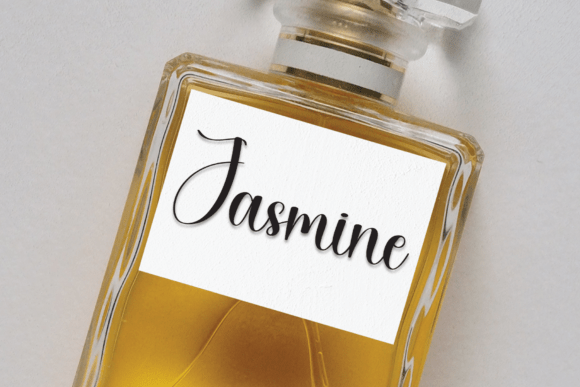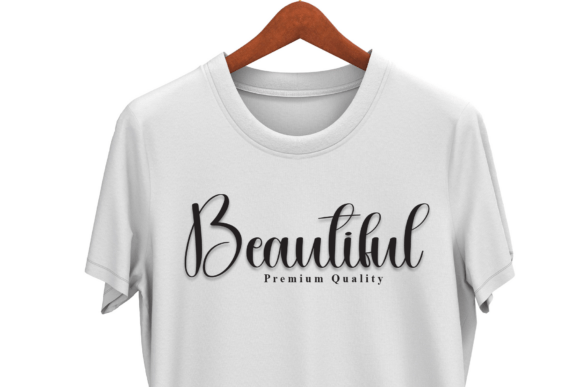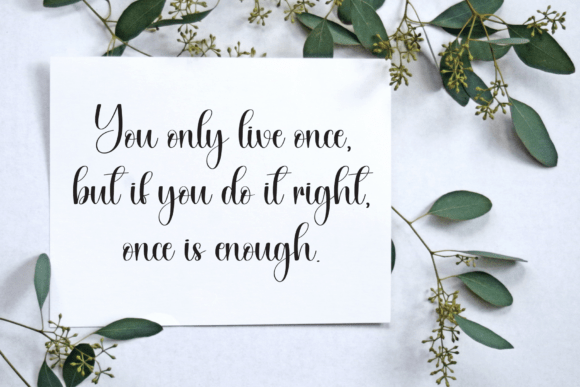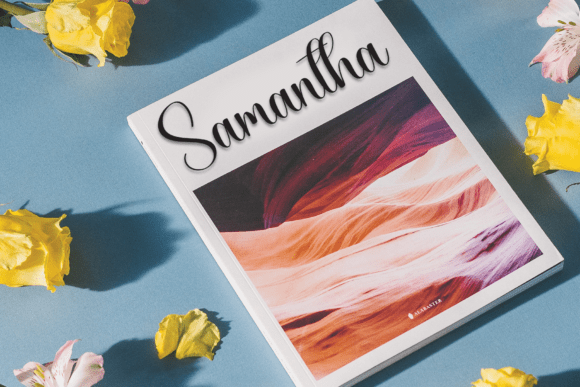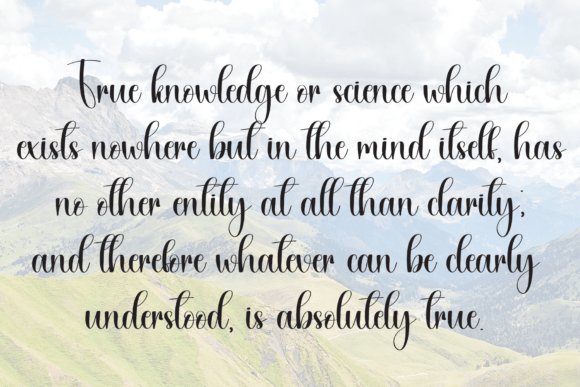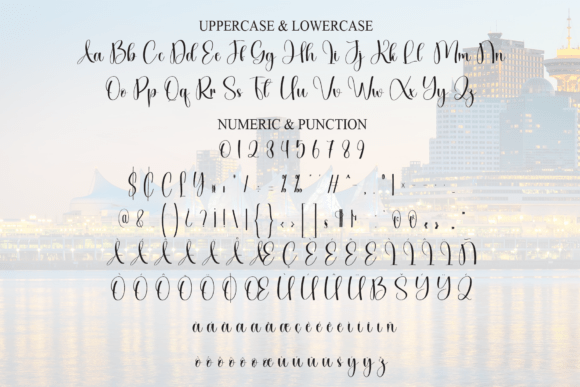
Australian Font: Elevate Your Design with Elegance and Charm
Are you looking for a font that can add a touch of sophistication to your design? Look no further than the Australian Font. This elegant script font is perfect for weddings, branding, social media, and invitations, featuring smooth curves and graceful swashes that elevate your text with a handwritten, romantic feel.
The Characteristics of Australian Font
The Australian Font is a script font that exudes elegance and charm. Its flowing lines and smooth curves create a sense of movement and fluidity, making it perfect for designs that require a touch of sophistication. The font features:
- Smooth Curves: The Australian Font features smooth, flowing curves that create a sense of elegance and refinement.
- Graceful Swashes: The font includes beautiful swashes that add a touch of drama and flair to your design.
- Handwritten Feel: The Australian Font has a handwritten feel that adds a personal touch to your design.
- Romantic Style: The font’s romantic style makes it perfect for weddings, love letters, and other designs that require a touch of whimsy.
Uses for Australian Font
The Australian Font is versatile and can be used for a variety of design projects, including:
- Weddings: The font is perfect for wedding invitations, wedding stationery, and other wedding-related designs.
- Branding: The Australian Font can be used to create a sophisticated brand identity that stands out from the crowd.
- Social Media: The font can be used to create engaging social media graphics, including Instagram posts, Facebook posts, and more.
- Invitations: The Australian Font is perfect for creating beautiful invitations for parties, events, and other special occasions.
Benefits of Using Australian Font
There are many benefits to using the Australian Font in your design projects, including:
- Elegance: The font adds a touch of elegance and sophistication to your design.
- Uniqueness: The Australian Font is a unique font that will make your design stand out from the crowd.
- Versatility: The font can be used for a variety of design projects, from weddings to branding.
- Easy to Read: The font is easy to read, making it perfect for designs that require a lot of text.
Tips for Using Australian Font
Here are some tips for using the Australian Font in your design projects:
- Use it Sparingly: Use the font sparingly to create a sense of elegance and sophistication.
- Pair it with Other Fonts: Pair the Australian Font with other fonts to create a unique and interesting design.
- Pay Attention to Kerning: Pay attention to kerning to ensure that the font looks elegant and refined.
The Australian Font is a beautiful script font that can add a touch of elegance and sophistication to any design. Its smooth curves, graceful swashes, and handwritten feel make it perfect for weddings, branding, social media, and invitations. With its versatility, uniqueness, and ease of use, the Australian Font is a great choice for designers and crafters looking to elevate their design.